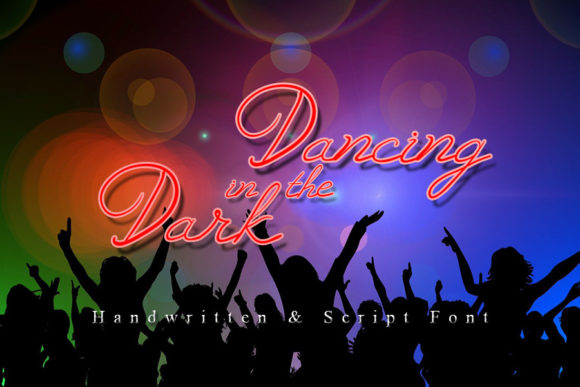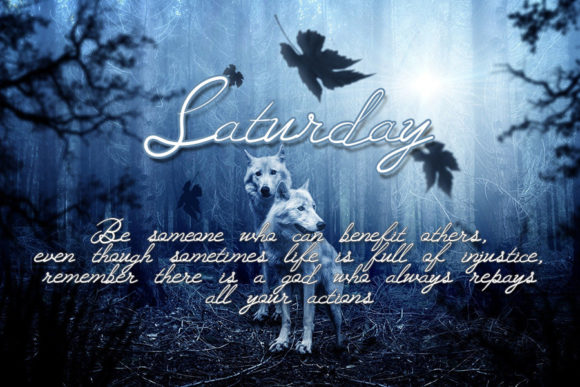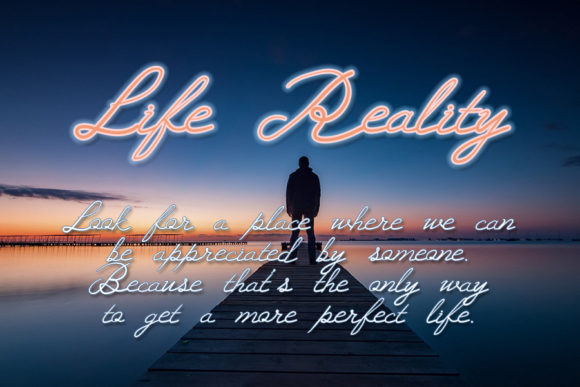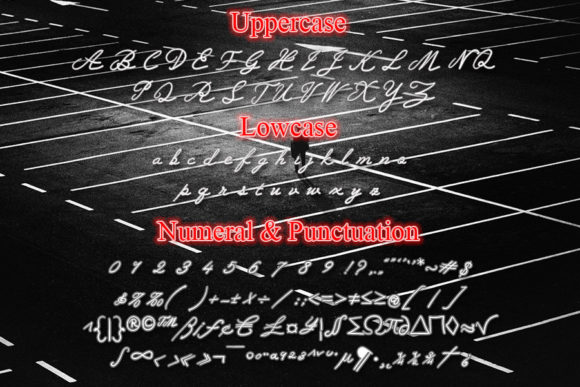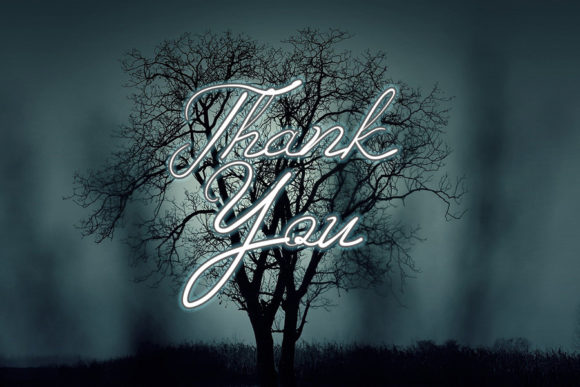
Dancing in the Dark Font
About Dancing in the Dark Font
Dancing in the Dark is a lovely and timeless handwritten font. It is the best choice for creating eye catching logos, branding and quotes. Every letter has a unique and beautiful touch, which will make your design come alive!